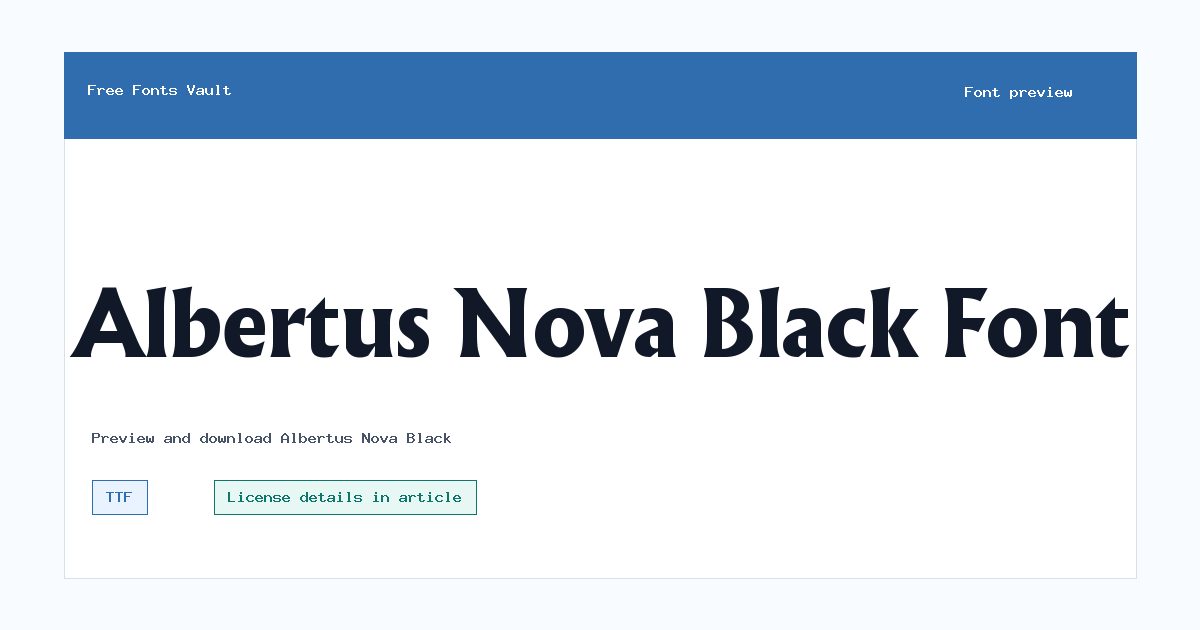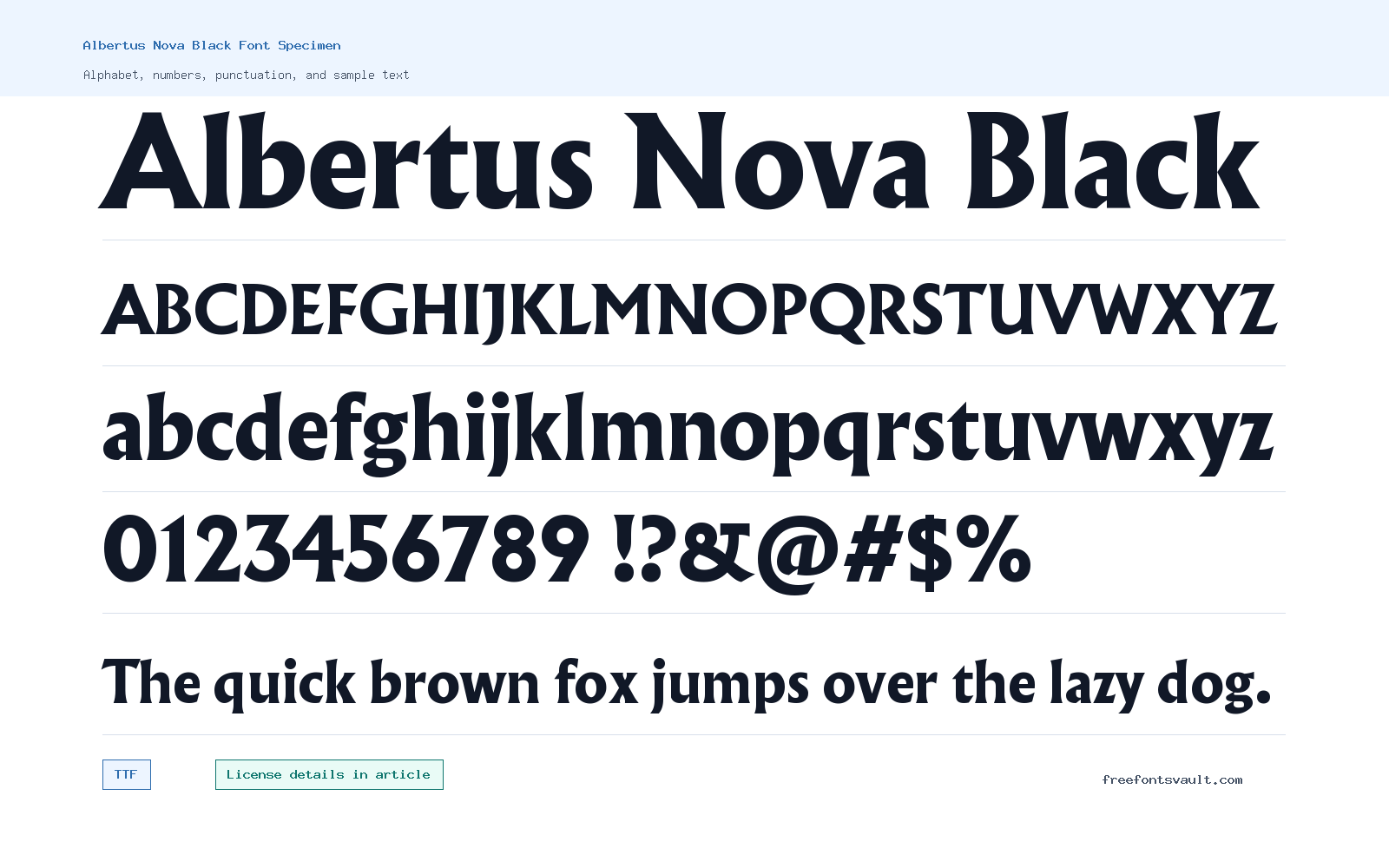
Albertus Nova Black
- Designer Toshi Omagari
- Foundry Monotype Imaging Inc.
Albertus Nova Black is a very heavy display cut of the Albertus Nova family, built for strong words, compact headlines, and text that needs a firm visual presence.
About Albertus Nova Black
Albertus Nova Black uses a black weight with a normal upright style, so it works best when the message is short and the size is generous. The weight gives words a dense, carved feel without relying on decorative effects. Use the preview tool to test names, title lines, product labels, poster headers, and other short phrases where the letter shapes have enough room to show clearly.
Because this is a 900-weight TTF font, it is not a good choice for long paragraphs or small body text. Try it first in all caps, title case, and mixed case, then compare spacing at the exact size you plan to use. For clean layouts, pair it with a quiet sans serif or readable serif for descriptions, captions, menus, and supporting copy. Let Albertus Nova Black carry the main wordmark or headline while the companion font handles reading comfort.
Albertus Nova Black can make a compact title feel formal and weighty, but the same strength can overpower smaller supporting text. Test it beside your paragraph font, button labels, and image backgrounds before choosing final colors or spacing.
A quick mobile preview is useful too, because very heavy letterforms can fill narrow screens faster than expected.
- Black 900 weight for bold display typography
- Poster titles, cover text, and large page headers
- Short labels, logo-style mockups, badges, and display words
Designer: Toshi Omagari. Foundry: Monotype Imaging Inc.
Use Albertus Nova Black at larger sizes with careful spacing. Avoid long paragraphs, narrow columns, and small UI text, because the heavy weight can reduce readability when the letters are crowded. Use high contrast and generous margins around the previewed word. If the title feels too heavy, keep Albertus Nova Black for the first word or main mark and let another family carry secondary information.
Is Albertus Nova Black good for body text?
No. Its black 900 weight is better for headlines, short titles, labels, and large display settings. Use a lighter, more readable font for paragraphs.
Test your exact words at the size you plan to use. Check spacing, all-caps readability, punctuation, numbers, and how the heavy weight looks beside your supporting text.